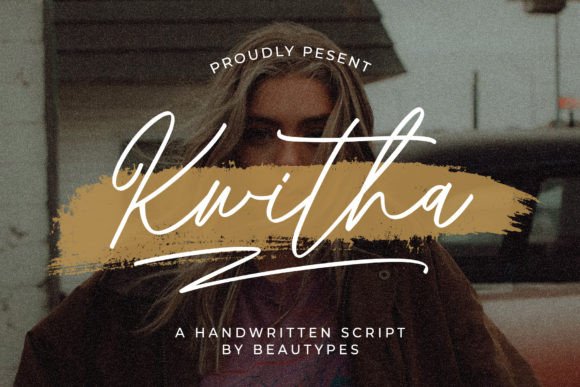
Introducing Kwitha Font, the best font for vintage design. Created by Beautypes, this script font boasts natural touches and swash strokes that give your designs a stunning and attractive look. Kwitha is the original handwritten font, making it the perfect choice for those who want to add a personal touch to their branding, taglines, websites, invitations, logos, cards, magazines, and more.
If you're looking for a font that captures the beauty and elegance of vintage design, Kwitha is the perfect choice. Its unique style and natural feel will transport your designs back in time, evoking a sense of nostalgia and charm. Whether you're creating a vintage-inspired wedding invitation or a retro logo for your business, Kwitha is sure to impress.
With its eye-catching style and versatile use, Kwitha Font is a must-have for any designer looking to elevate their work. The script font is perfect for adding a touch of personality to your designs, allowing you to create unique and memorable pieces that stand out from the crowd.